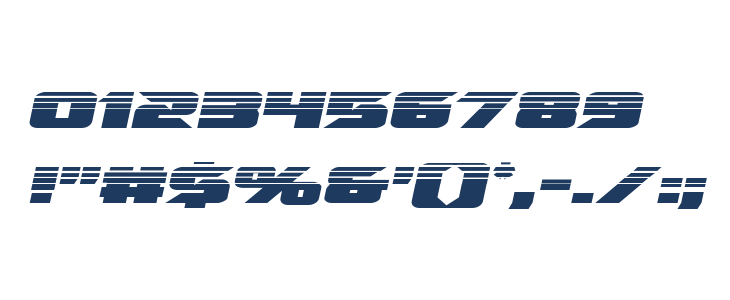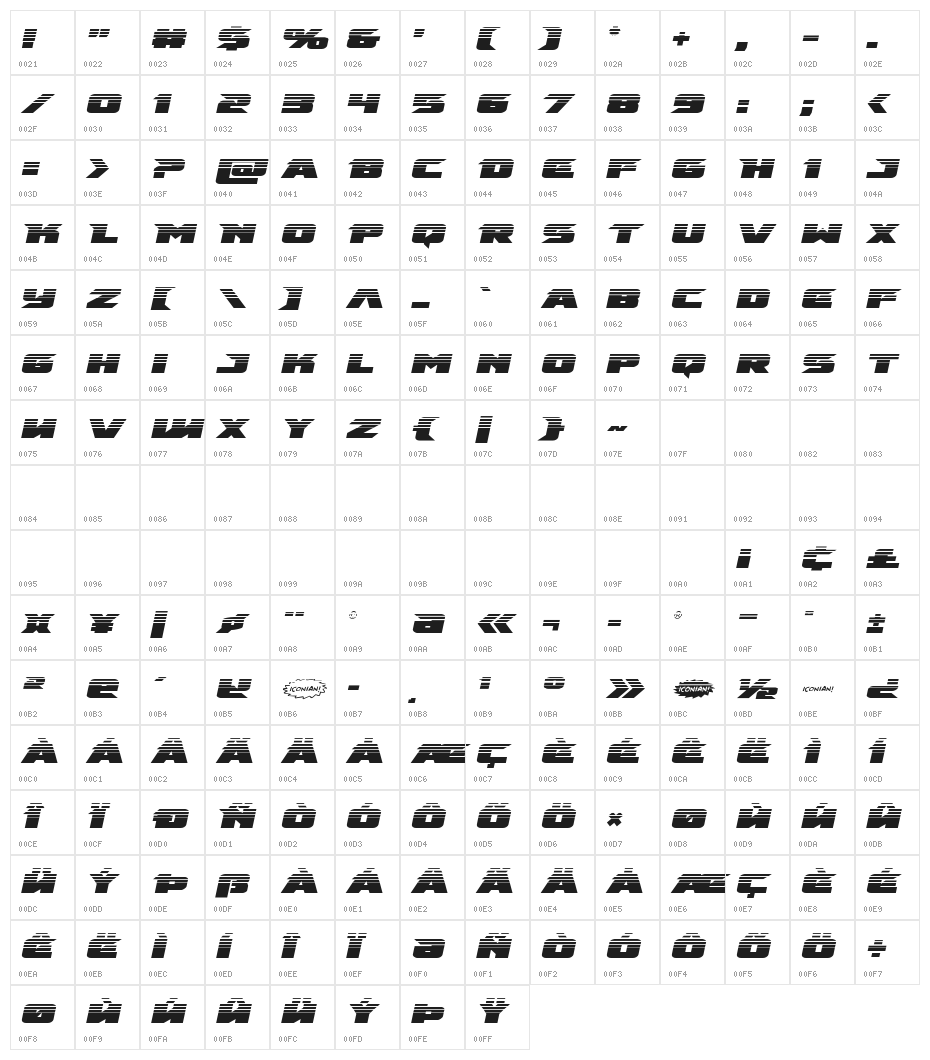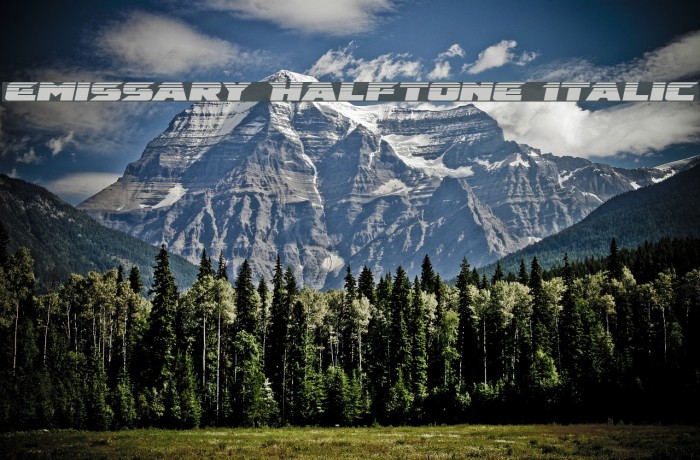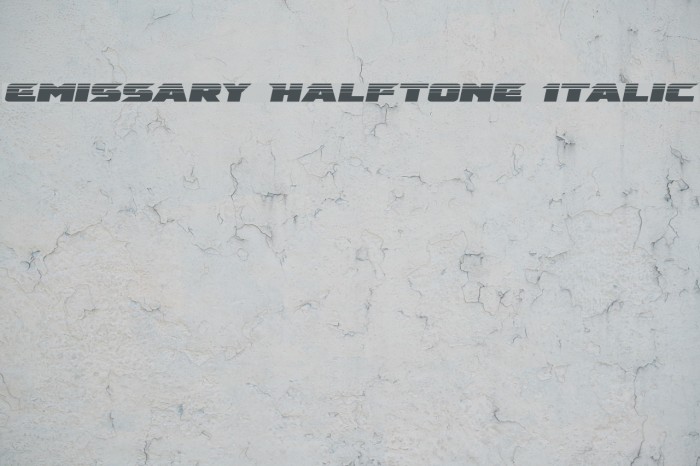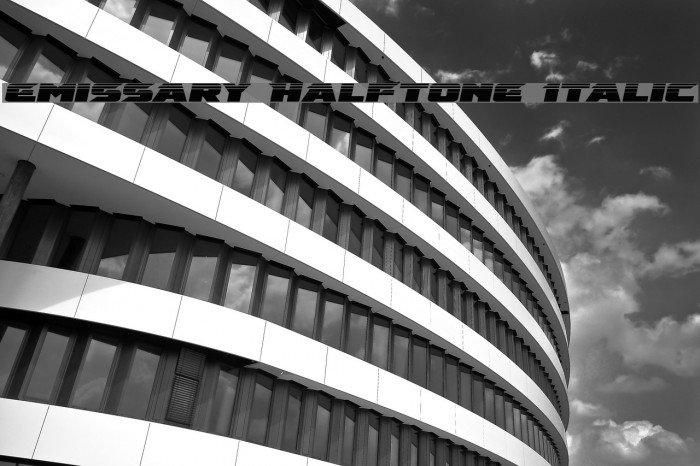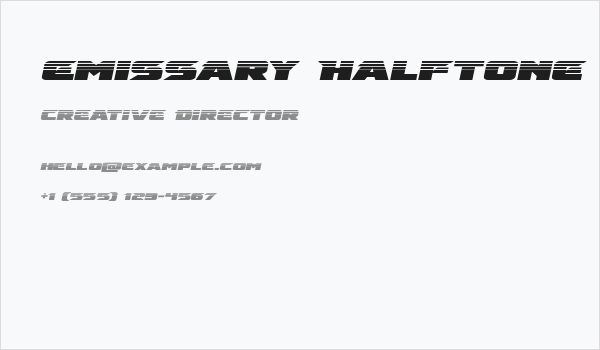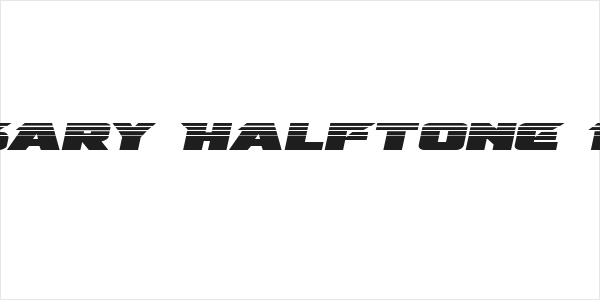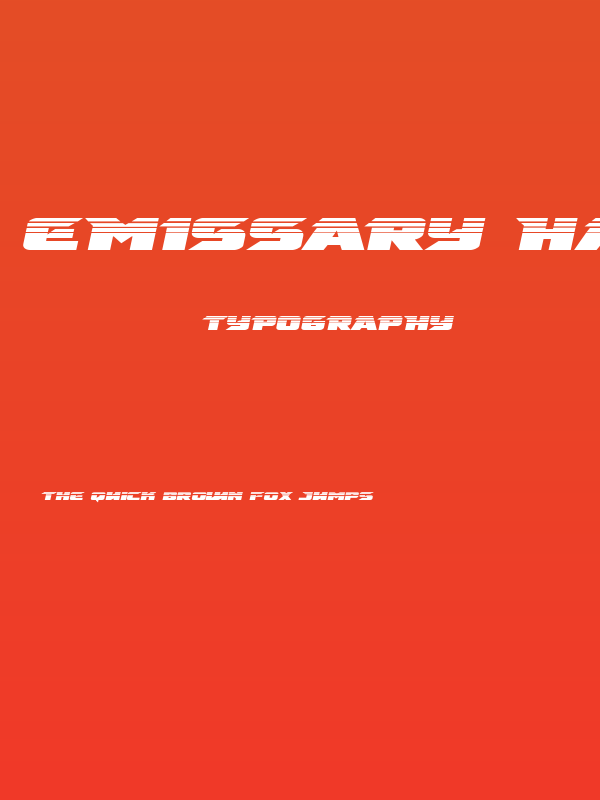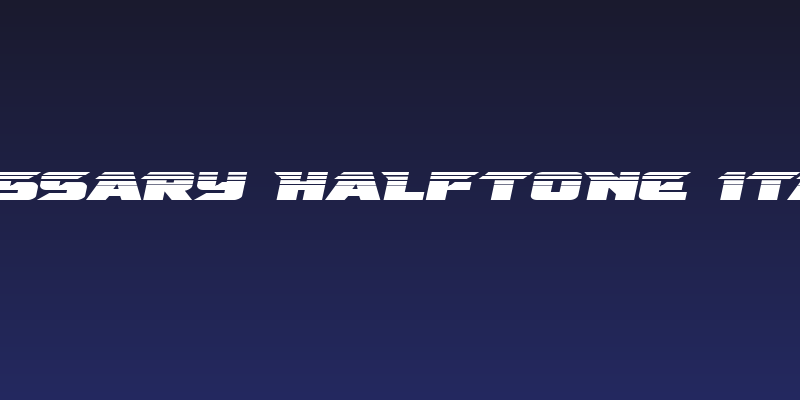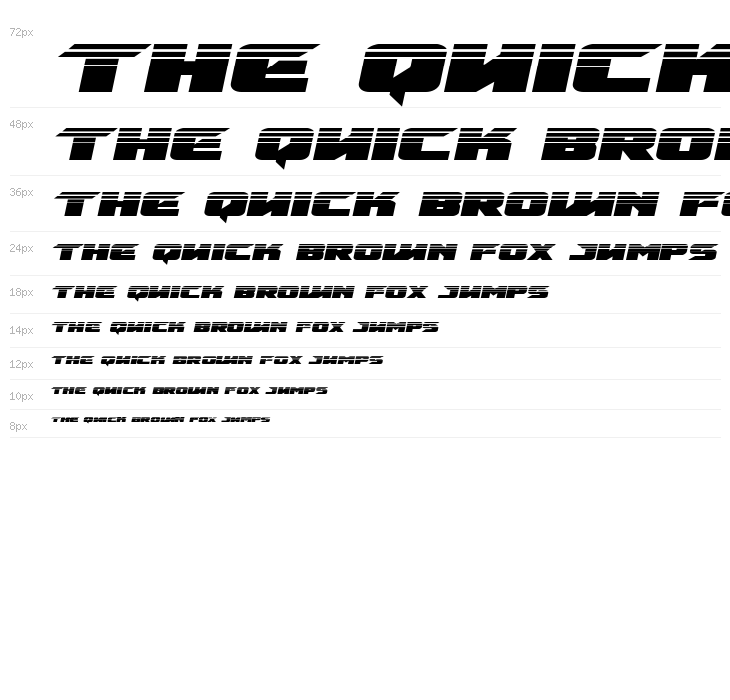
Emissary Halftone Italic Font
Emissary Halftone Italic Description
This font features a bold, dynamic style with a halftone effect that gives it a futuristic and edgy appearance. The characters are italicized, adding a sense of motion and speed. The design incorporates sharp angles and a distinct geometric structure, making it stand out. The uppercase and lowercase letters maintain a consistent style, while the numbers and special characters are designed to complement the overall aesthetic. This font is ideal for projects that require a modern and impactful look.
| Overall Style | Futuristic, Dynamic |
| Proposed Projects | Ideal for sci-fi themed designs, video game titles, posters, and branding that requires a modern and dynamic look. |